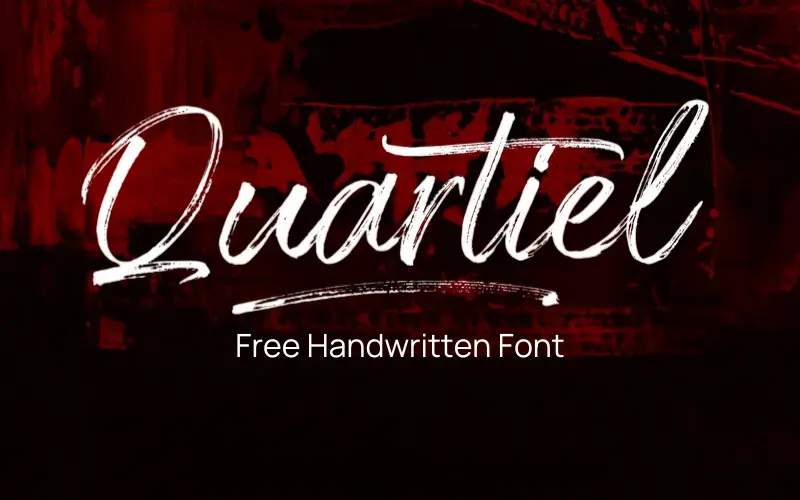
Quartiel – Free Handwritten Font
Quartiel is a unique handwritten font available in three typefaces, each in OTF format.
It is perfect for branding, invitations, social media posts, posters, or anything that needs a natural, handwritten look.
Typefaces included in the Quartiel font:
- Quartiel – Regular
- Quartiel – Slant
- Quartiel – Swash
- Free Handwritten Font – Quartiel
- Available with 3 typefaces – regular, slant & swash.